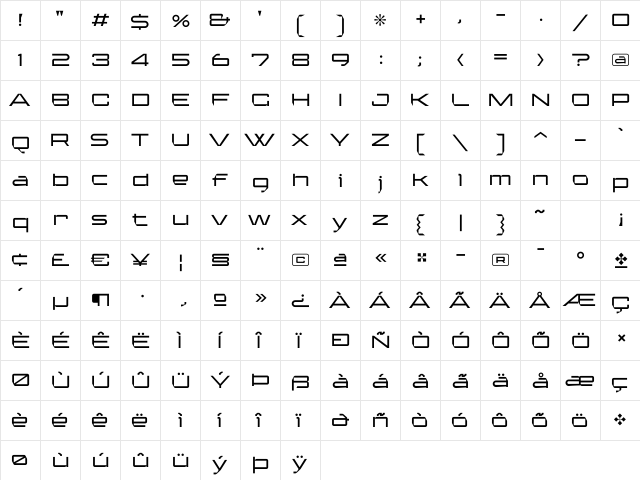
AmbexThin Regular
Design Context for AmbexThin Typeface
AmbexThin offers clean, dependable letterforms without strong stylistic allegiance, making it a practical choice for designers who need flexibility. Its slender proportions lend an understated elegance to any composition.
Pro Tip: Pair AmbexThin with a font of contrasting weight or personality to build a more expressive typographic hierarchy.